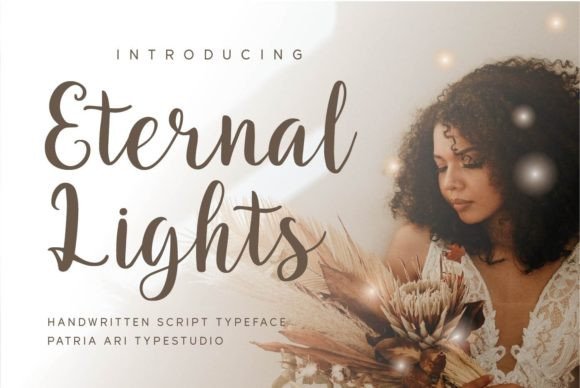
Introducing Eternal Lights Font: A Calligraphic Masterpiece for Your Creative Endeavors
Step into a world of elegance and charm with Eternal Lights Font, a captivating script font that will transform your designs into works of art. Crafted with meticulous precision, Eternal Lights captures the essence of handwritten beauty, adding a touch of authenticity and warmth to your projects.
With its delicate strokes and well-rounded curves, Eternal Lights exudes a timeless charm that is perfect for a wide range of creative endeavors. Whether you're designing wedding invitations, birthday cards, personal branding materials, or elegant logos, this versatile font will effortlessly elevate your designs.
Immerse yourself in the enchanting world of Eternal Lights and let your creativity soar. Its graceful lines and flowing characters will add an air of sophistication to any project, making your words come alive with a unique and expressive flair.
Unleash the boundless potential of Eternal Lights and let your imagination shine. Its versatility knows no bounds, making it the perfect choice for a diverse range of projects. From heartfelt letters and personalized gifts to stunning social media posts and eye-catching marketing campaigns, Eternal Lights will add a touch of magic to every creation.
With Eternal Lights as your creative companion, you'll discover a new level of expression. Its enchanting curves and captivating details will infuse your designs with a touch of whimsy and charm, leaving a lasting impression on all who behold them.
Elevate your designs to new heights with Eternal Lights Font, the ultimate choice for those who seek beauty, elegance, and authenticity in their typography. Embrace the power of this captivating script and embark on a creative journey that will leave you inspired and amazed.